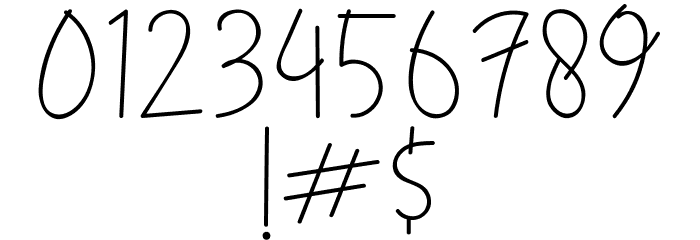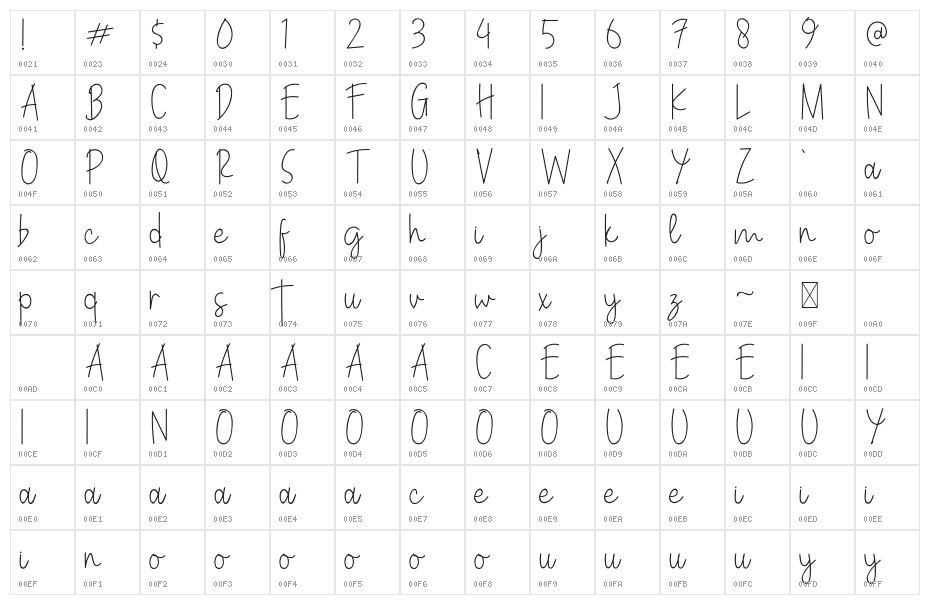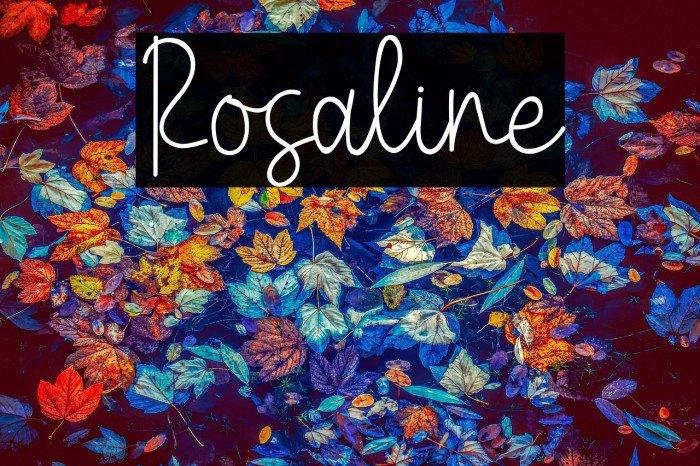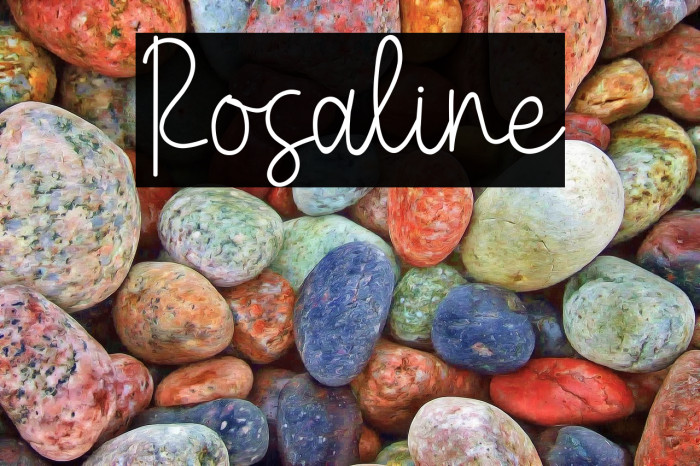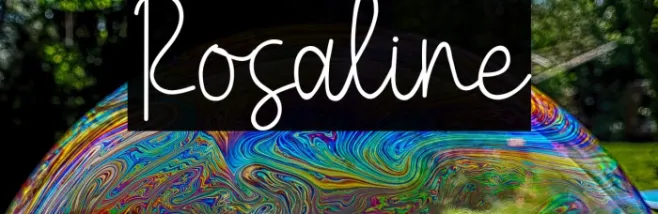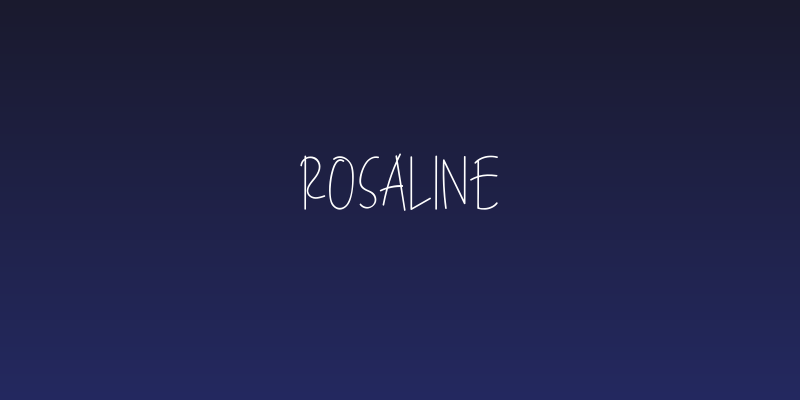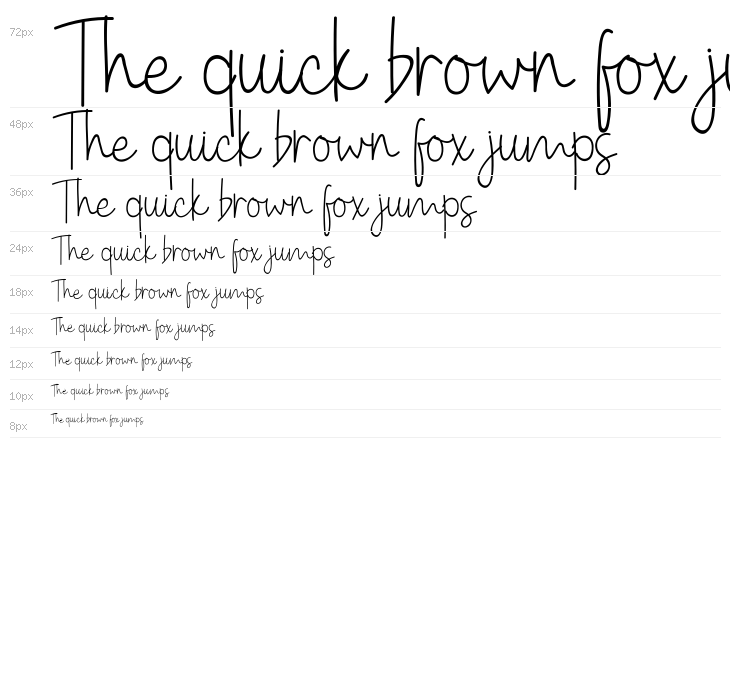
Rosaline Font
Rosaline Description
This font features a playful and casual handwritten style, characterized by its tall, narrow letters and slightly irregular strokes. The uppercase letters are distinct with a slight slant, while the lowercase letters maintain a consistent flow, adding to the informal charm. The numbers are clear and legible, matching the overall aesthetic. Special characters are creatively integrated, maintaining the whimsical feel. This font's unique personality makes it suitable for projects that require a personal touch.
Overall StyleCasual, Playful
Use CaseHeadlines, Informal text, Creative projects
Proposed ProjectsIdeal for greeting cards, personal branding, children's books, and creative social media graphics.